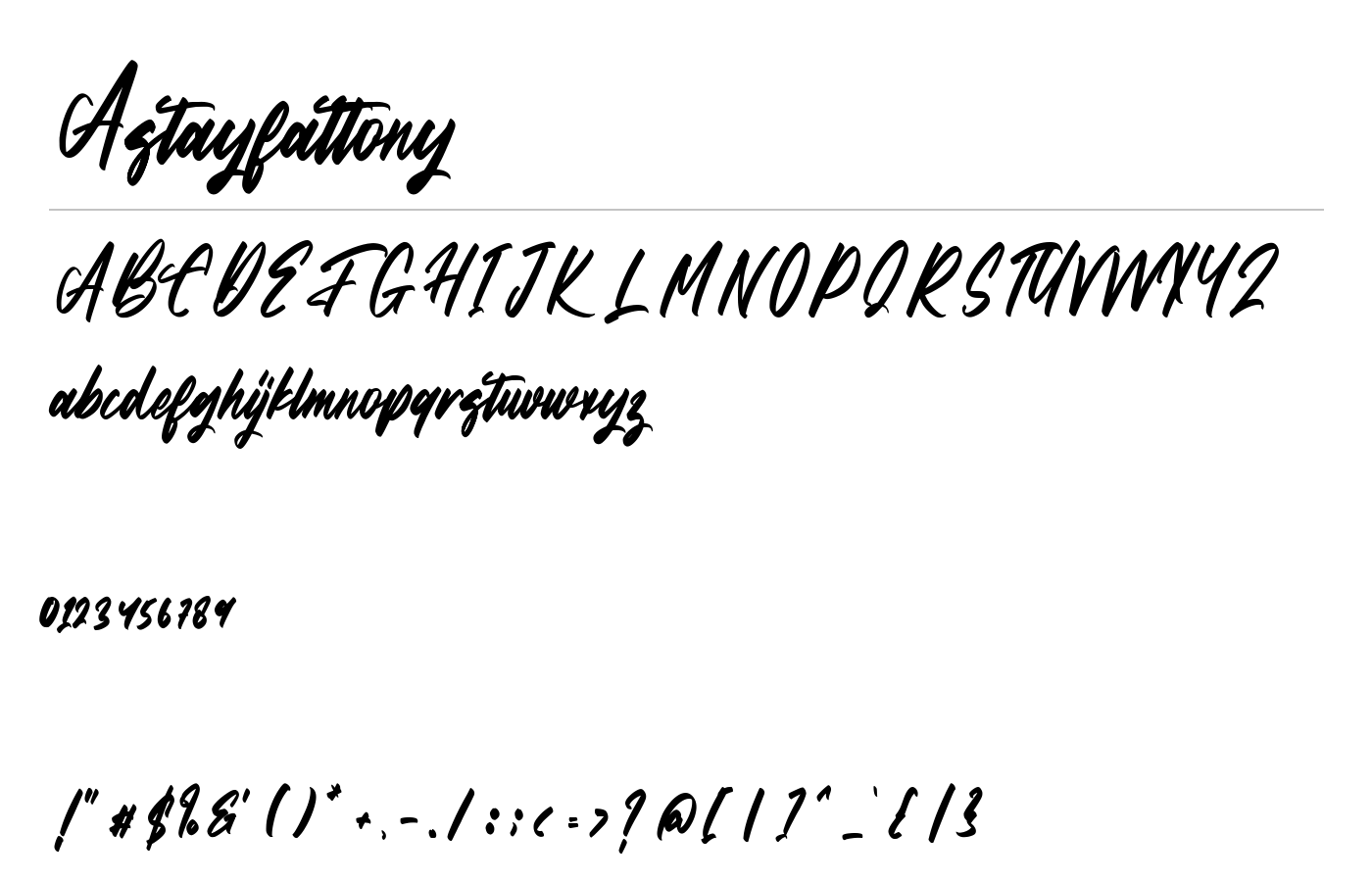
Astayfattony is an energetic and bold script font that mimics natural brush handwriting with its fluid, dynamic strokes and varying thickness. It conveys a lively, informal personality, making it perfect for creative branding, eye-catching headlines, and expressive packaging where a personal, artistic touch is desired. This font's strong presence and playful elegance bring warmth and authenticity to any design needing a modern, handcrafted feel.
Astayfattony Font
About Astayfattony Font